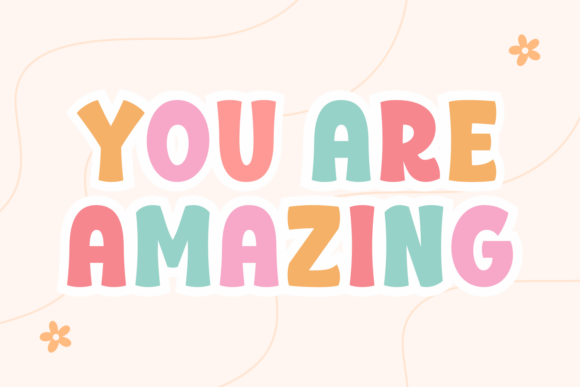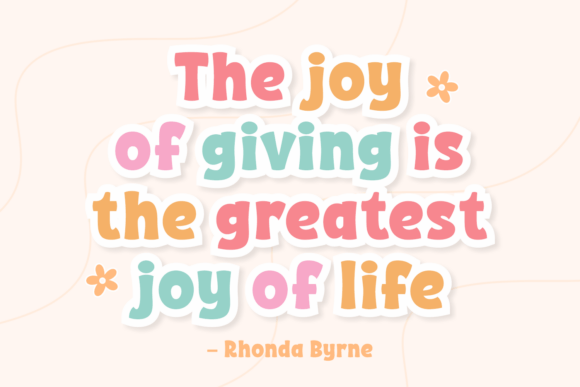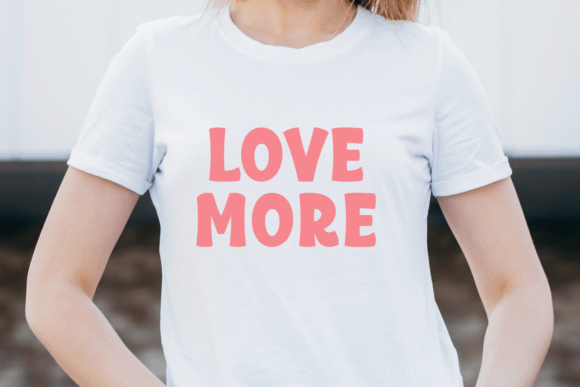
Introduction to Shine Festival Font
Shine Festival: Cute Display Font Step into a world of pastel dreams with Shine Festival, a cute display font designed for pure joy.
This typeface balances soft, organic curves with a playful rhythm, making every word look like it’s ready for a celebration It is the ultimate choice for nursery decor, children’s party invitations, K-pop inspired aesthetics, and whimsical craft projects.
Key Features of Shine Festival Font